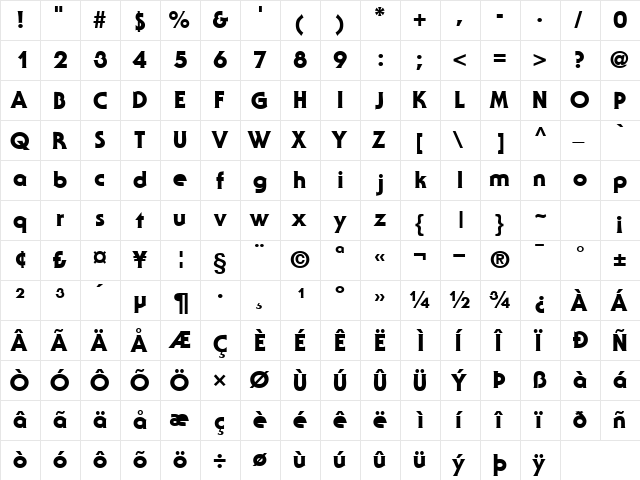
UbiqGothicUltraSSi Regular Font Preview
UbiqGothicUltraSSi Regular
Design Context for UbiqGothicUltraSSi Typeface
UbiqGothicUltraSSi takes a clean, functional approach — its unadorned letterforms prioritise legibility and work reliably across screen and print environments.
Font Pairing: Works well alongside a characterful serif or display font that can carry the expressive load while UbiqGothicUltraSSi handles the functional copy.
Pro Tip: Pair UbiqGothicUltraSSi with a display or serif font for headlines — its neutral character makes it an excellent supporting player in complex typographic systems.